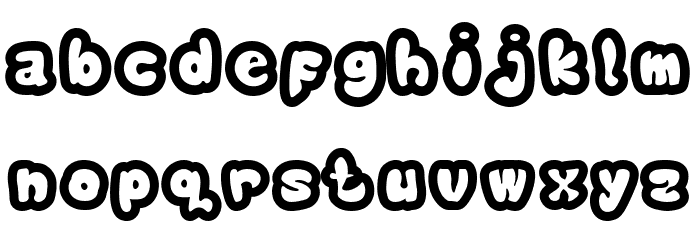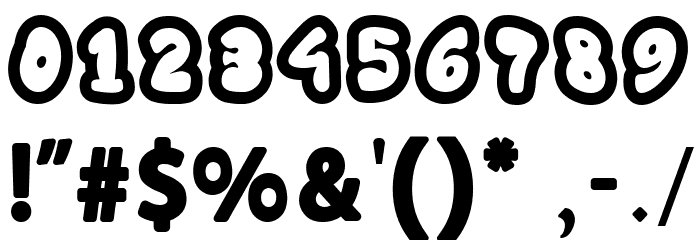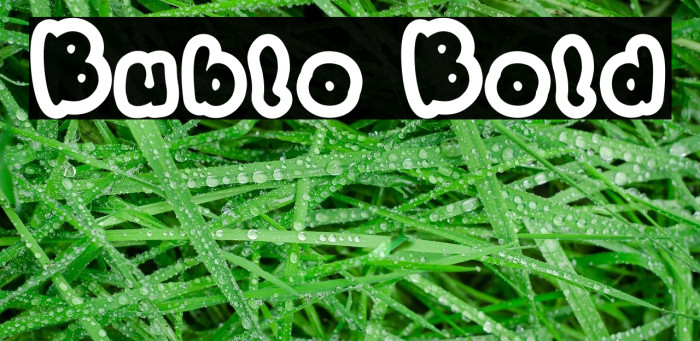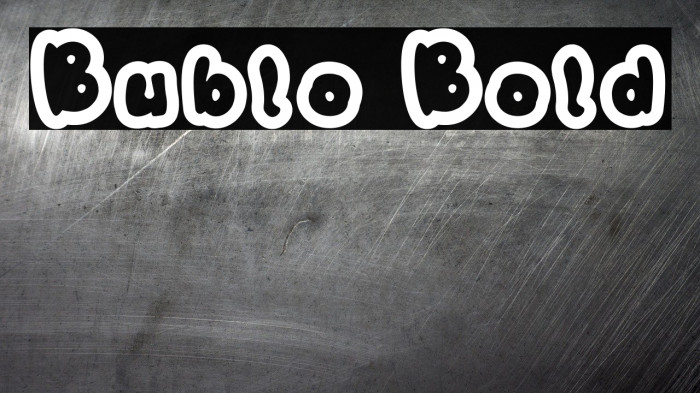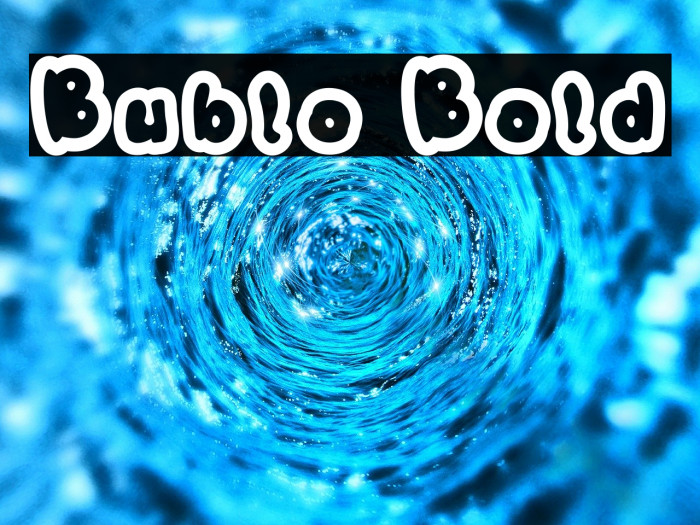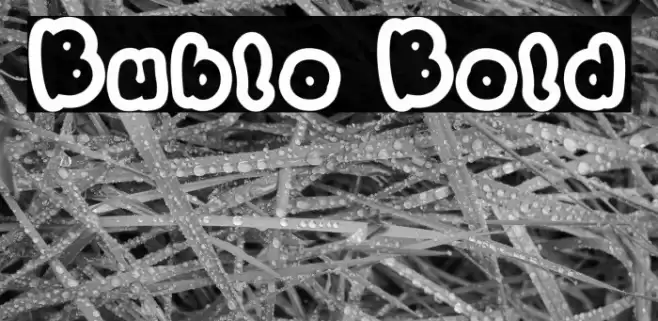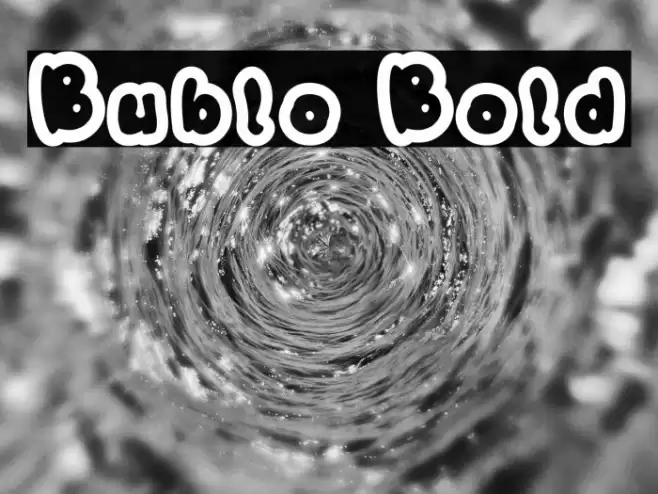
Bublo Bold Font
This playful and bold font features rounded, bubbly characters that exude a sense of fun and whimsy. Each letter is thick and robust, with a consistent stroke width that gives it a cartoonish and approachable appearance. The characters are well-spaced, ensuring readability while maintaining a lively and energetic feel. The font includes a full set of uppercase and lowercase letters, numbers, and a variety of special characters, making it versatile for different uses. Its unique style is perfect for projects that aim to capture attention and convey a lighthearted tone.
A playful, bold font with rounded, bubbly characters ideal for fun and whimsical designs.
- Proposed Projects: Ideal for children's books, playful branding, party invitations, and comic-style graphics.
- Overall Style: Playful, Cartoonish